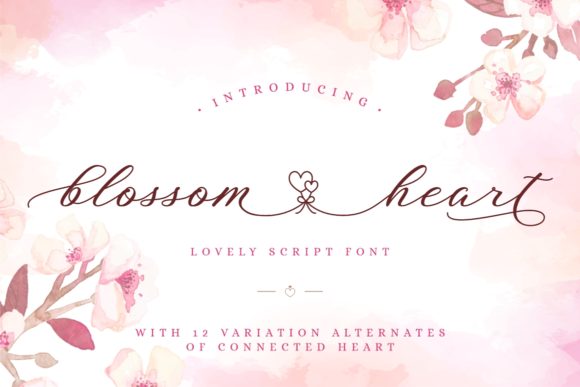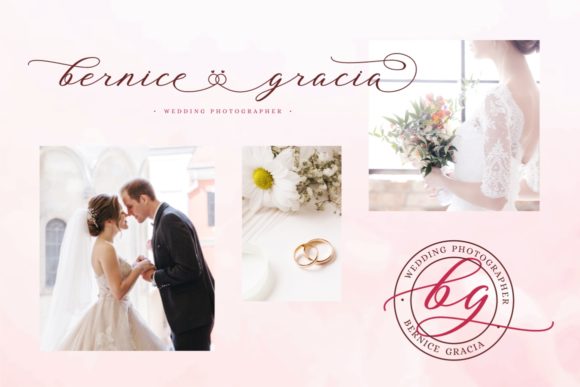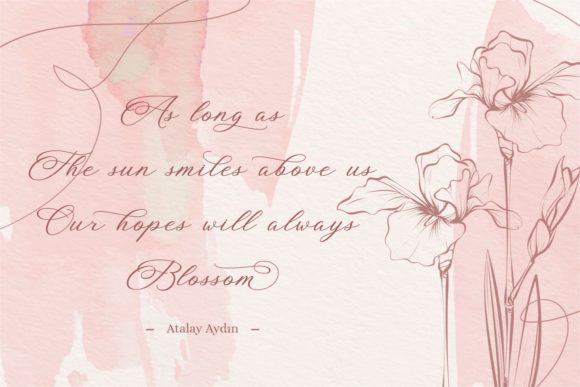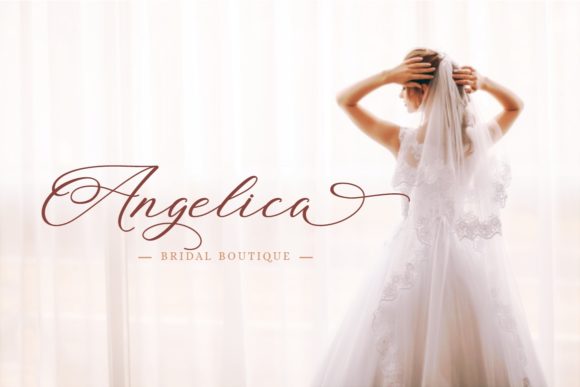
Blossom Heart Font: Romantic Script for Wedding Invitations & Cute DIY Crafts
About the Blossom Heart Font
Experience the unique personality of Blossom Heart Font, a font designed for impact. Blossom Heart is a romantic and charming script font, featuring tiny little hearts as ornaments. This font is PUA encoded which means you can access all of the glyphs and swashes with ease! Not too thin and not too thick, balanced and varied, Blossom Heart was designed to enhance the beauty of your projects.
Blossom Heart excels in projects requiring a touch of delicate romance—wedding invitations, greeting cards, or branding for businesses focused on beauty and femininity. It works beautifully for short headlines, logos, and quotes where its charming details shine. However, its intricate nature makes it less suitable for body text or UI elements, where readability is paramount. Avoid using it for large blocks of text.
The overall personality of Blossom Heart is undeniably romantic and charming, yet possesses a sophisticated elegance that prevents it from feeling overly saccharine. Its balanced weight and consistent stroke variation contribute to its refined character.
Blossom Heart Font Usage Examples
Blossom Heart Font Example